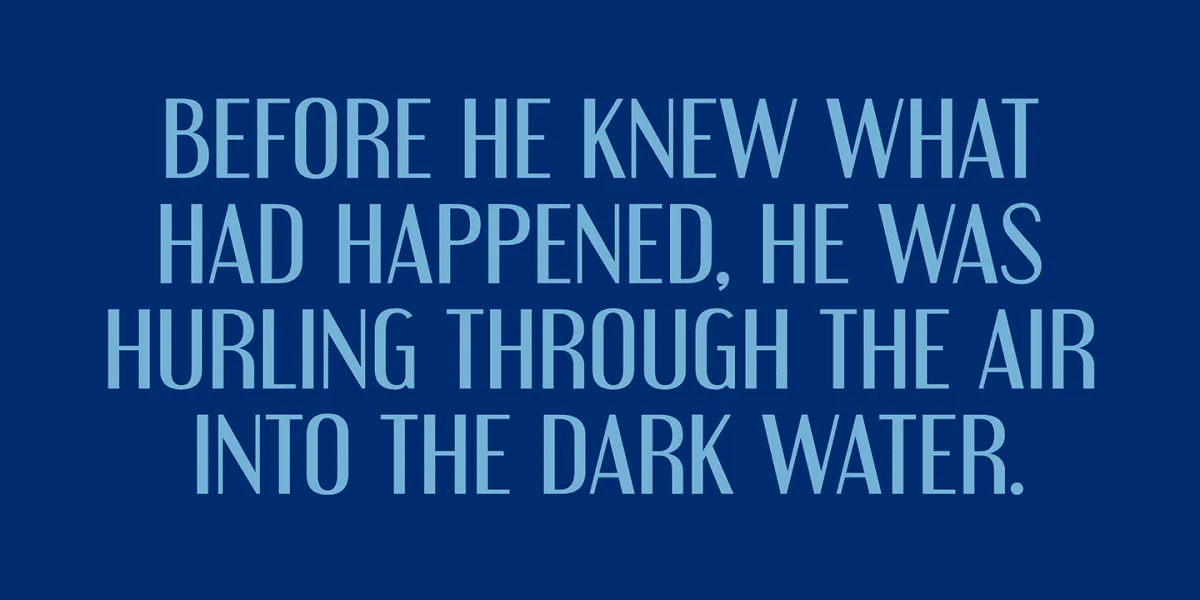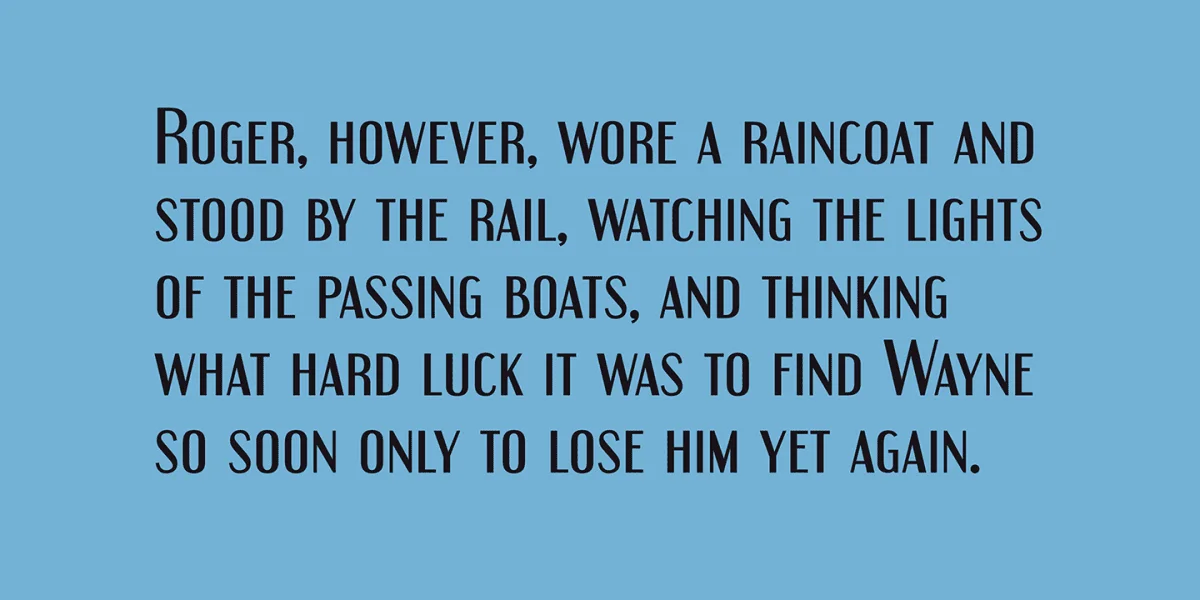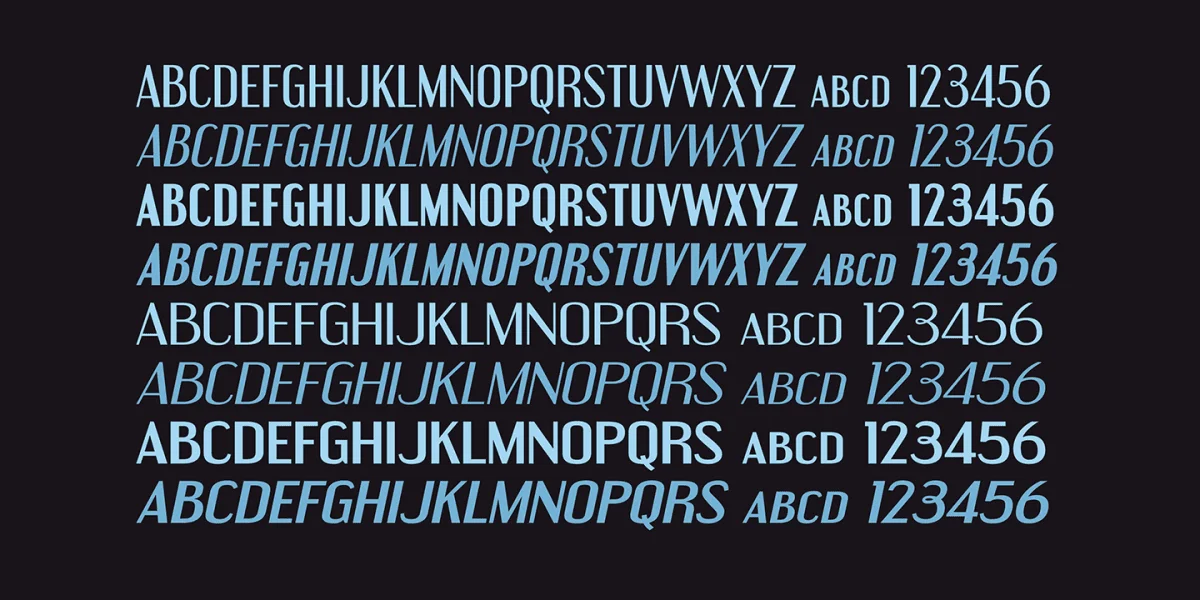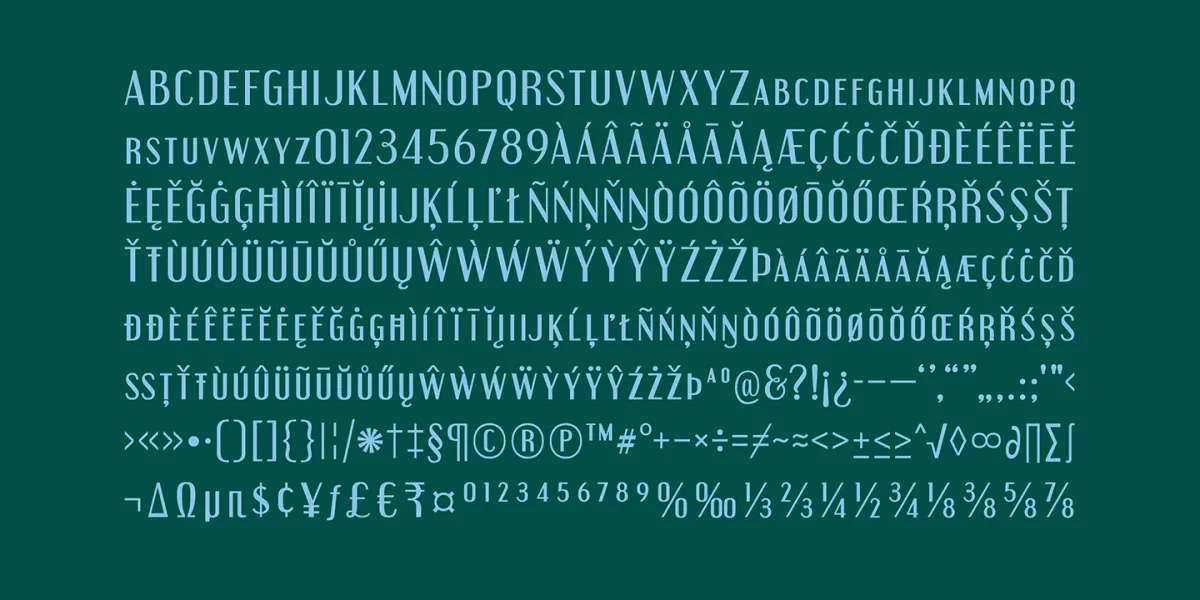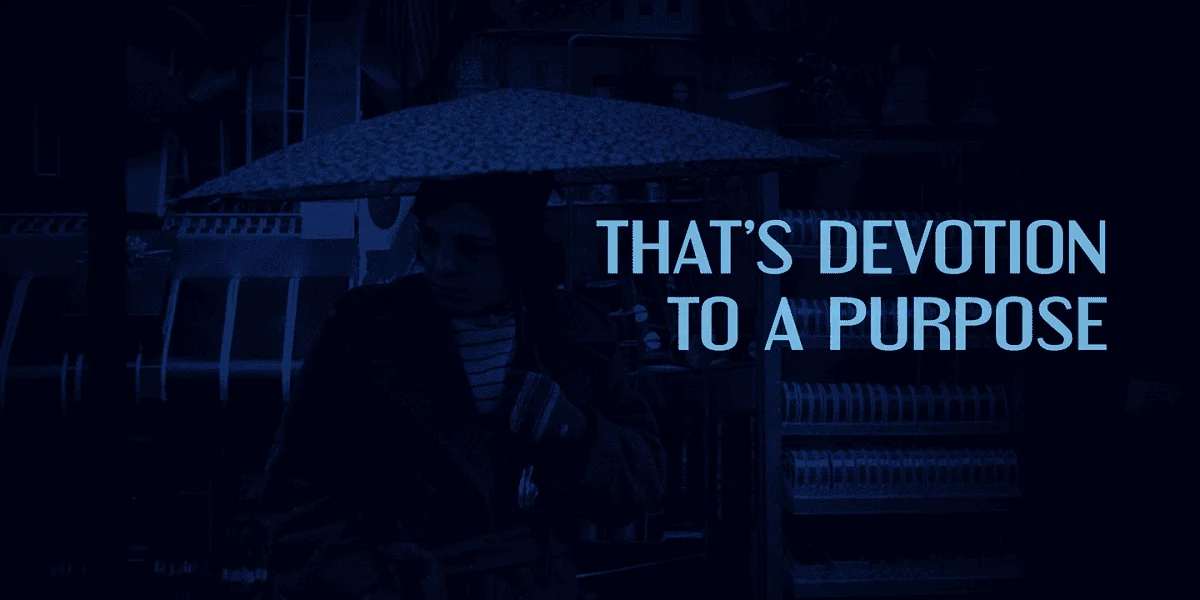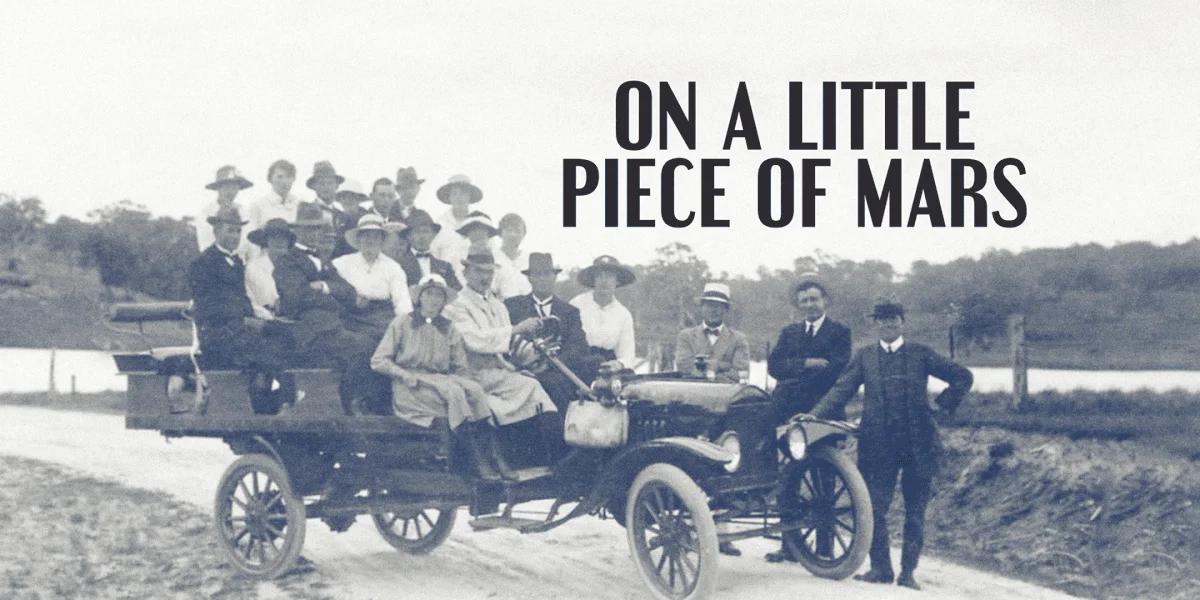
Engebrechtre—the Art Deco typeface with a semi-industrial Vibe. If you’re looking for a typeface that embodies the sleek sophistication of the 1920s, look no further than Engebrechtre. This compact sans-serif display font features flat-sided shapes and bold letterforms that evoke the energy and excitement of the Art Deco era.
With two distinct weights and widths to choose from, Engebrechtre gives you the flexibility you need to create truly unique designs. And if you want to add a touch of elegance and flair to your project, its italics are the perfect choice.
Whether you’re designing a vintage-inspired logo, creating eye-catching packaging, or crafting attention-grabbing headlines, Engebrechtre is the typeface you need to make a bold statement. So why wait? Start using Engebrechtre today and unleash your creativity like never before!